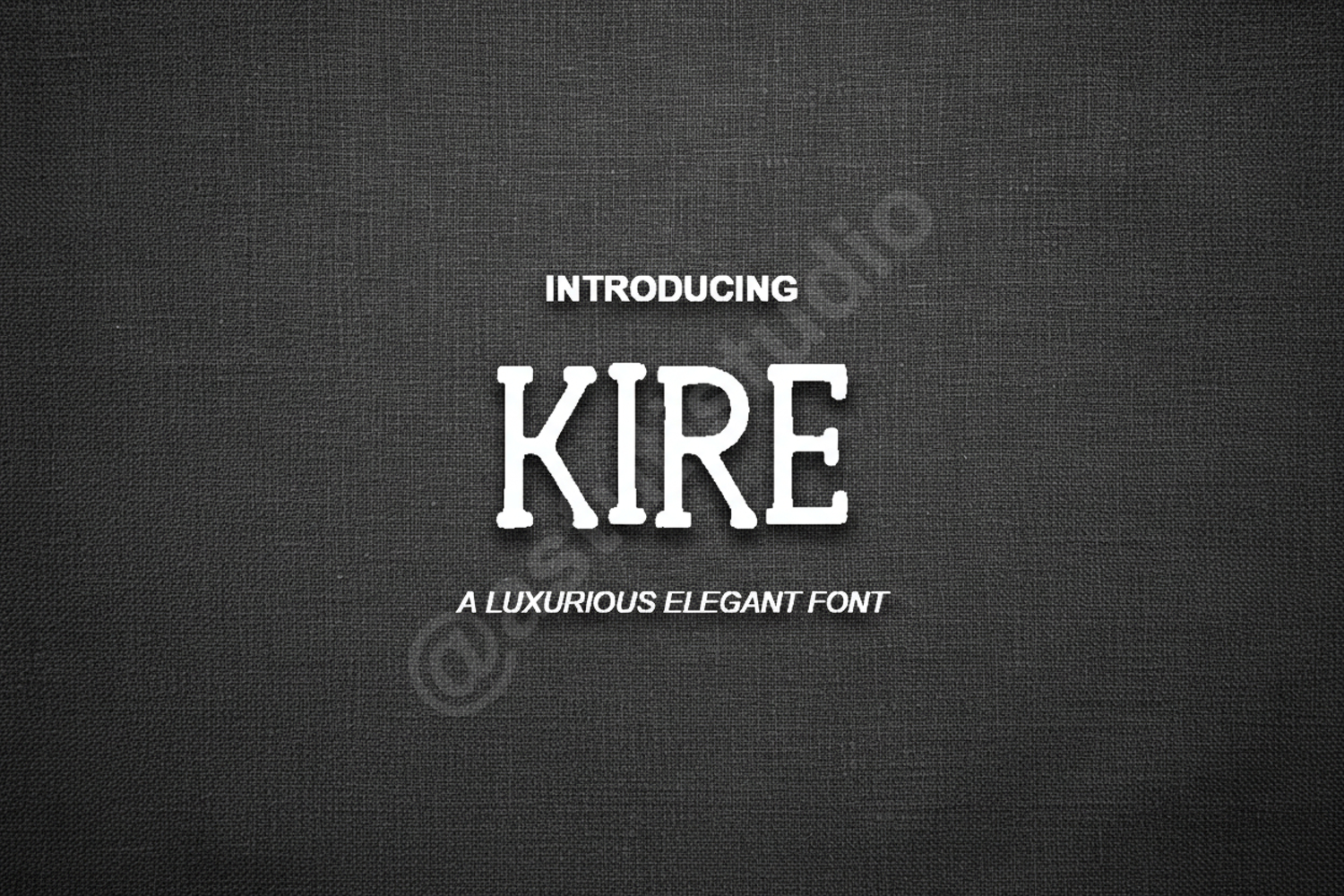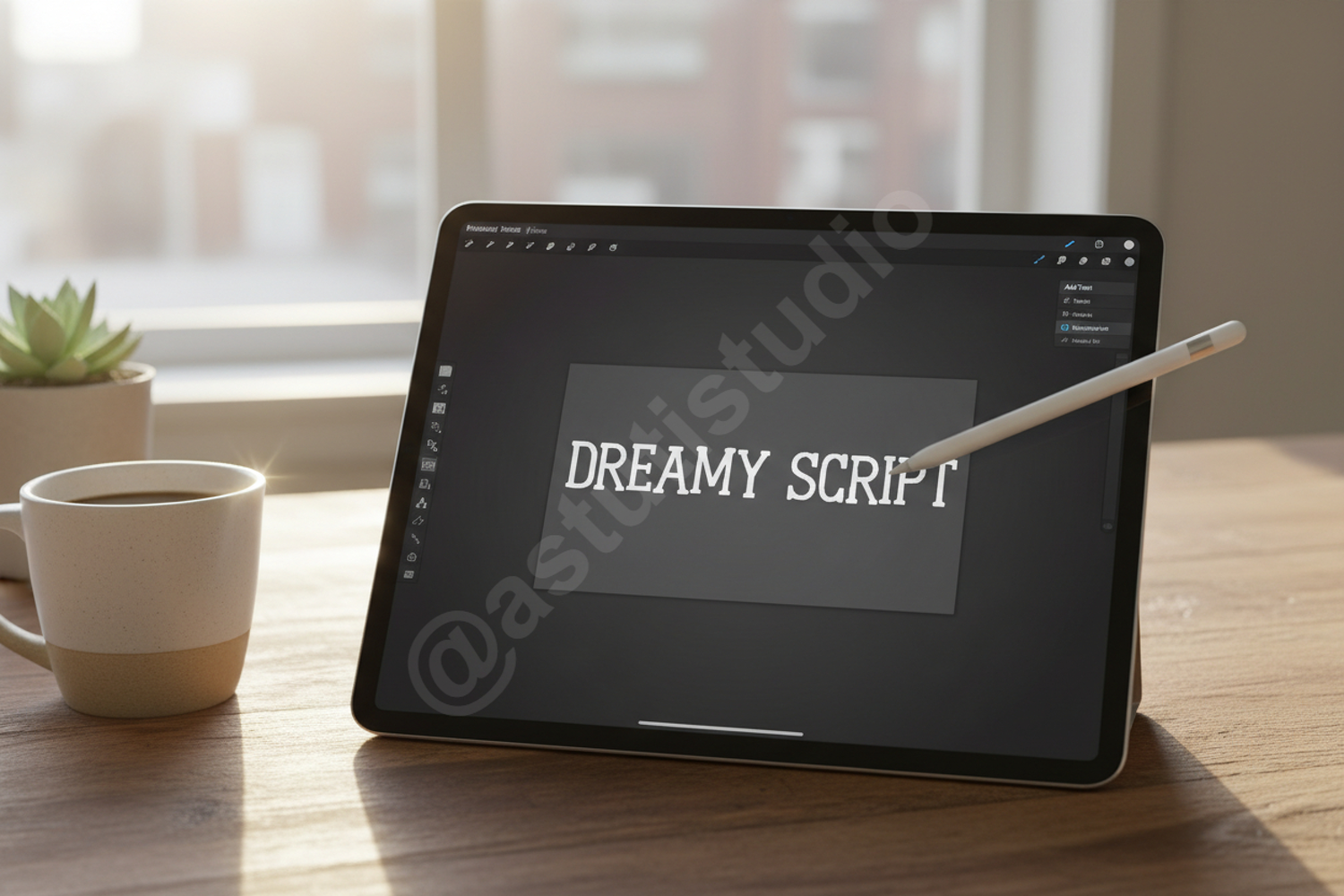
Kire - Elegant Modern Serif Typeface
Kire
Elevate your design projects with Kire, a sophisticated modern serif font that embodies elegance and professional craftsmanship. Kire is meticulously designed to provide a timeless aesthetic, making it an essential addition to any designer's toolkit. Whether you are aiming for a minimalist look or a high-end luxury feel, this font delivers exceptional clarity and style to every character.
- Full set of uppercase and lowercase letters
- Comprehensive numbers and punctuation
- Extensive multilingual support for global accessibility
- Branding and Logo Design: Perfect for creating memorable and authoritative brand identities.
- Wedding Stationery: Ideal for sophisticated invitations, save-the-dates, and elegant ceremony programs.
- Editorial Layouts: Enhances the readability and visual appeal of magazines, books, and digital articles.
- Luxury Packaging: Adds a premium touch of class to product labels, boxes, and tags.
- Social Media Content: Great for creating high-impact quotes, stories, and promotional graphics.